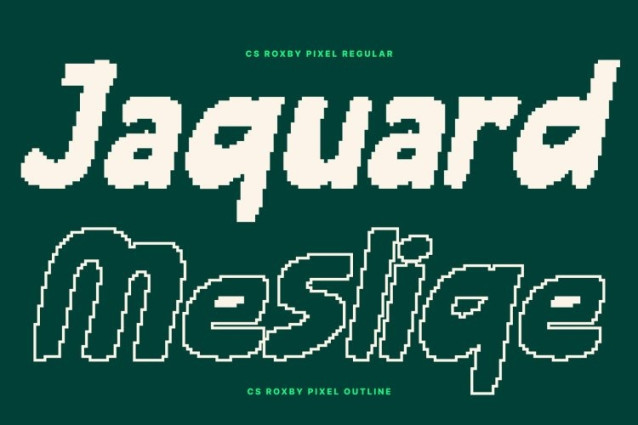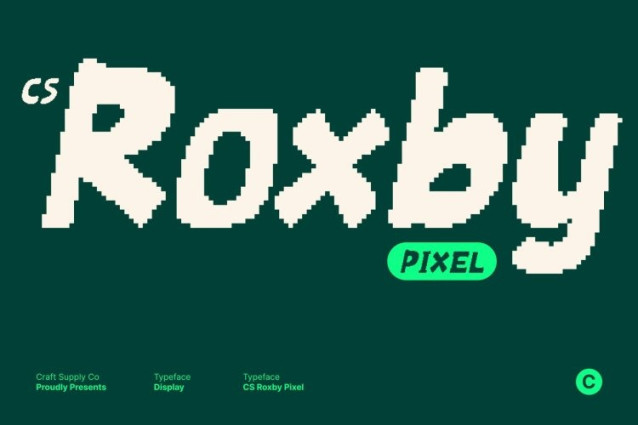
CS Roxby Pixel Font
CS Roxby Pixel Font This is a playful handwritten font inspired by childlike doodles and cartoon-style lettering, enhanced with a subtle pixel influence. Its irregular, hand-drawn strokes give each character a spontaneous and lively feel, creating an authentic handcrafted look that feels warm, fun, and full of personality.
Relaxed Forms with Joyful Expression
Designed with loose curves and uneven rhythms, delivers a relaxed and engaging visual tone. The friendly flow of its letterforms makes every word feel approachable and cheerful, while the playful construction adds a spark of creativity that keeps designs feeling lighthearted and expressive.
Perfect for Fun, Cute, and Childlike Visuals
With its cartoonish charm and playful attitude, this font pairs beautifully with colorful, soft, or pastel palettes. It’s an excellent choice for children’s designs, illustrations, playful posters, educational materials, and creative projects that aim to communicate joy, imagination, and friendliness.
Versatile for Creative Branding and Casual Design
Beyond kids-focused visuals, this font works well for logos, social media graphics, packaging, and casual branding that want to feel welcoming and creative. Its hand-drawn pixel character ensures your designs stand out with originality, warmth, and a touch of playful digital charm.